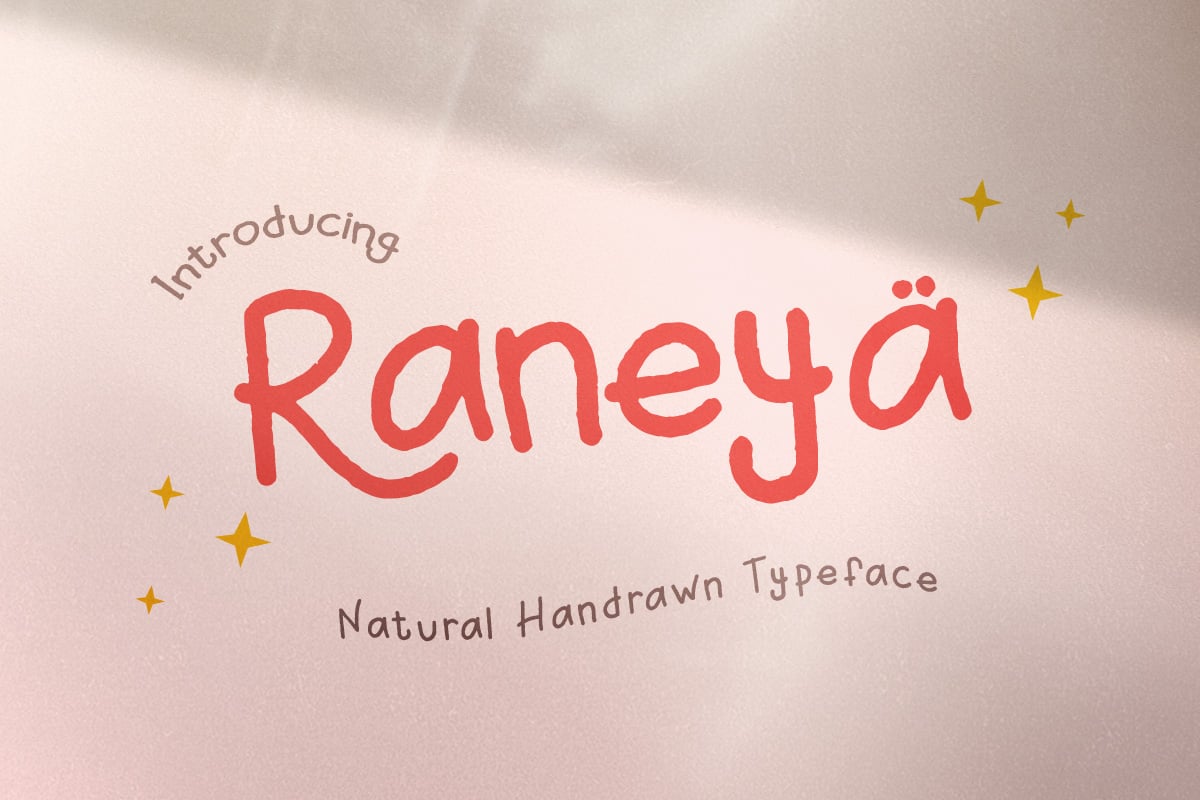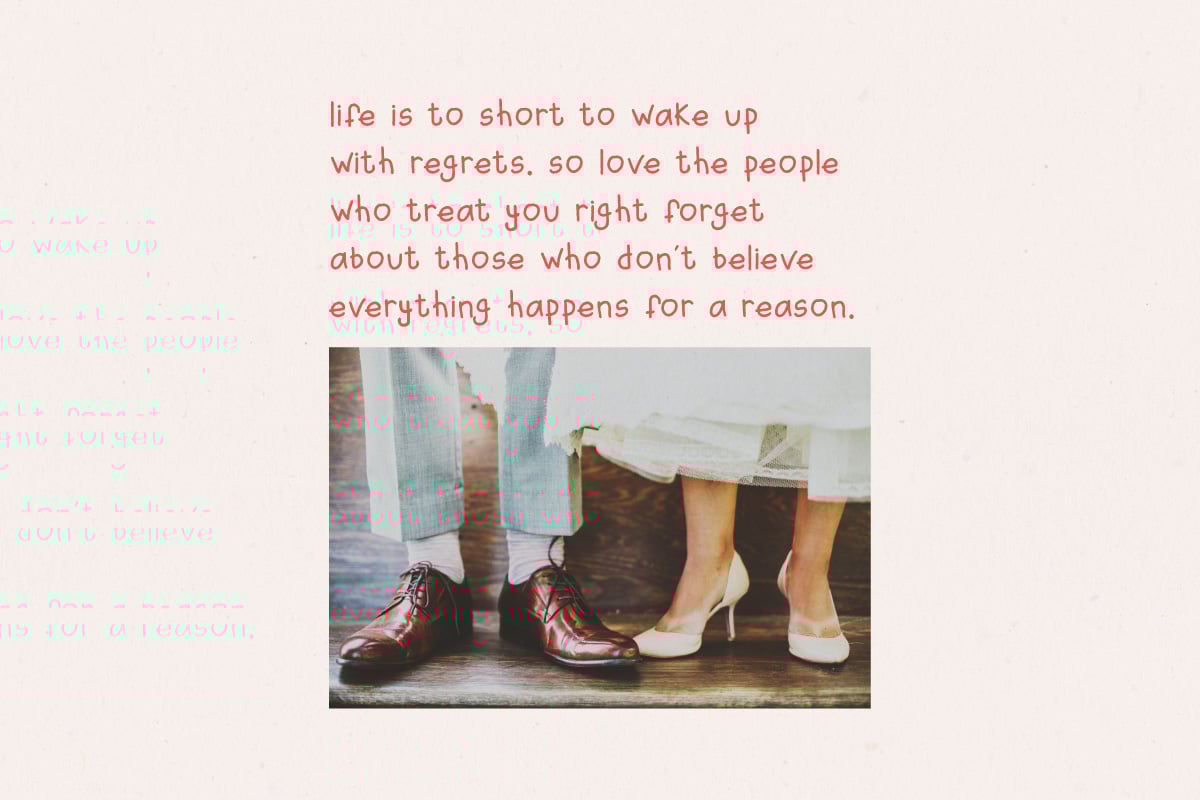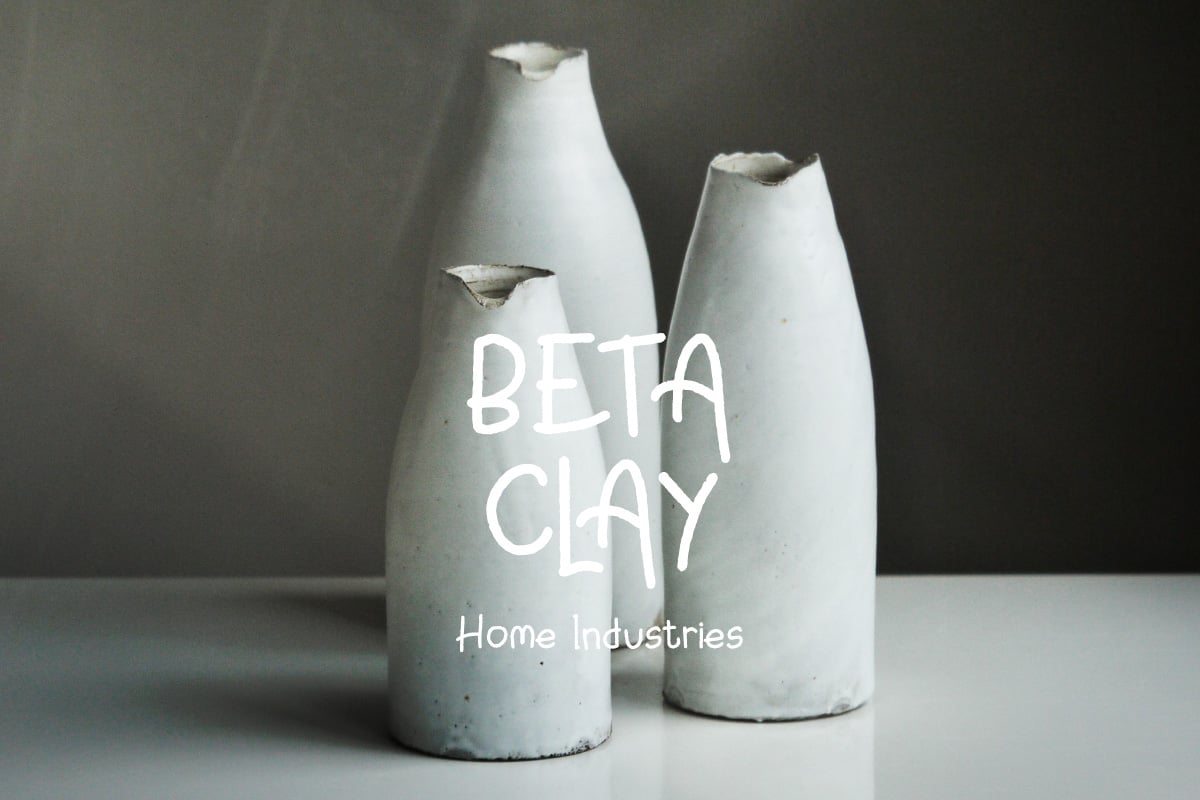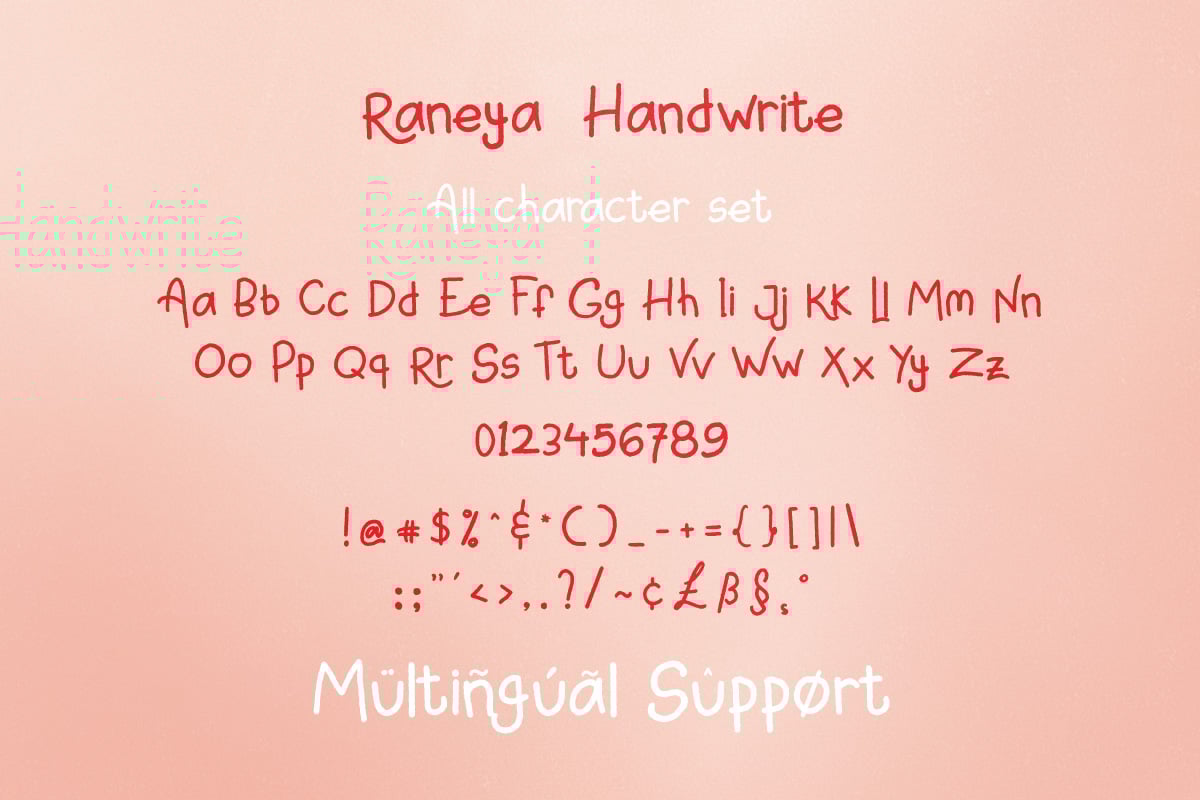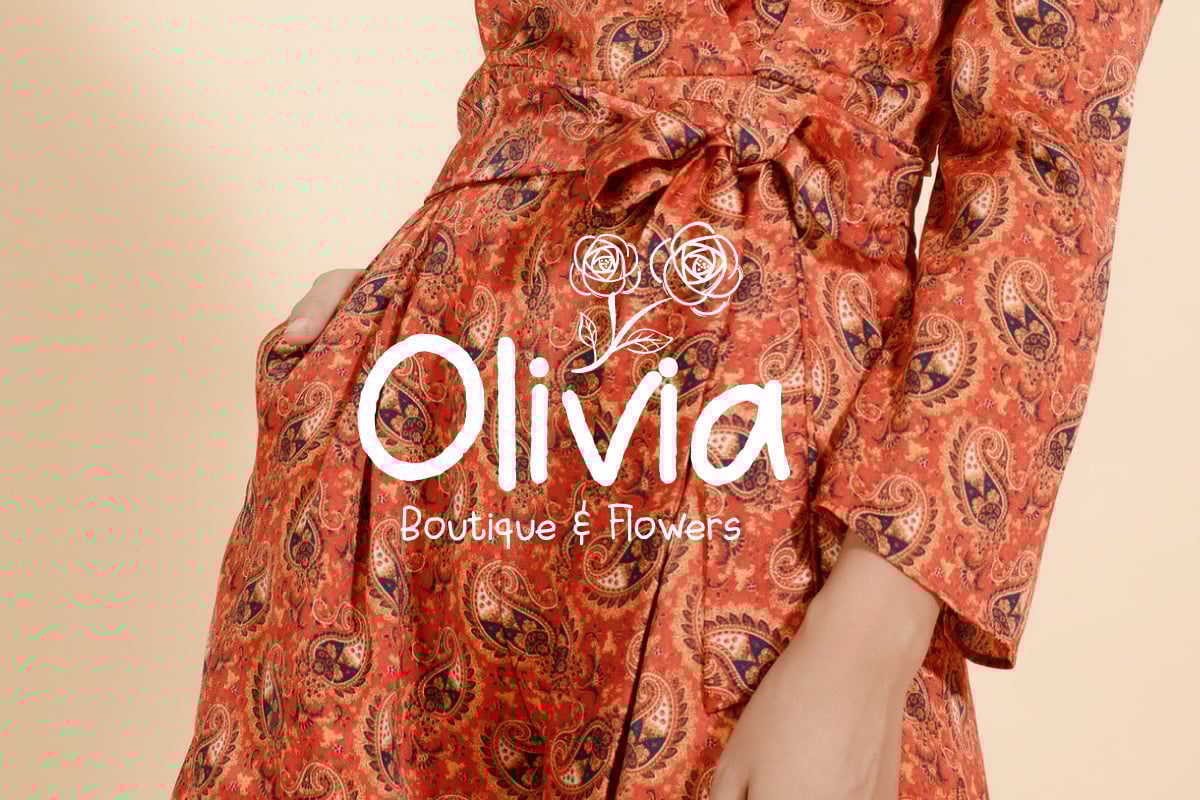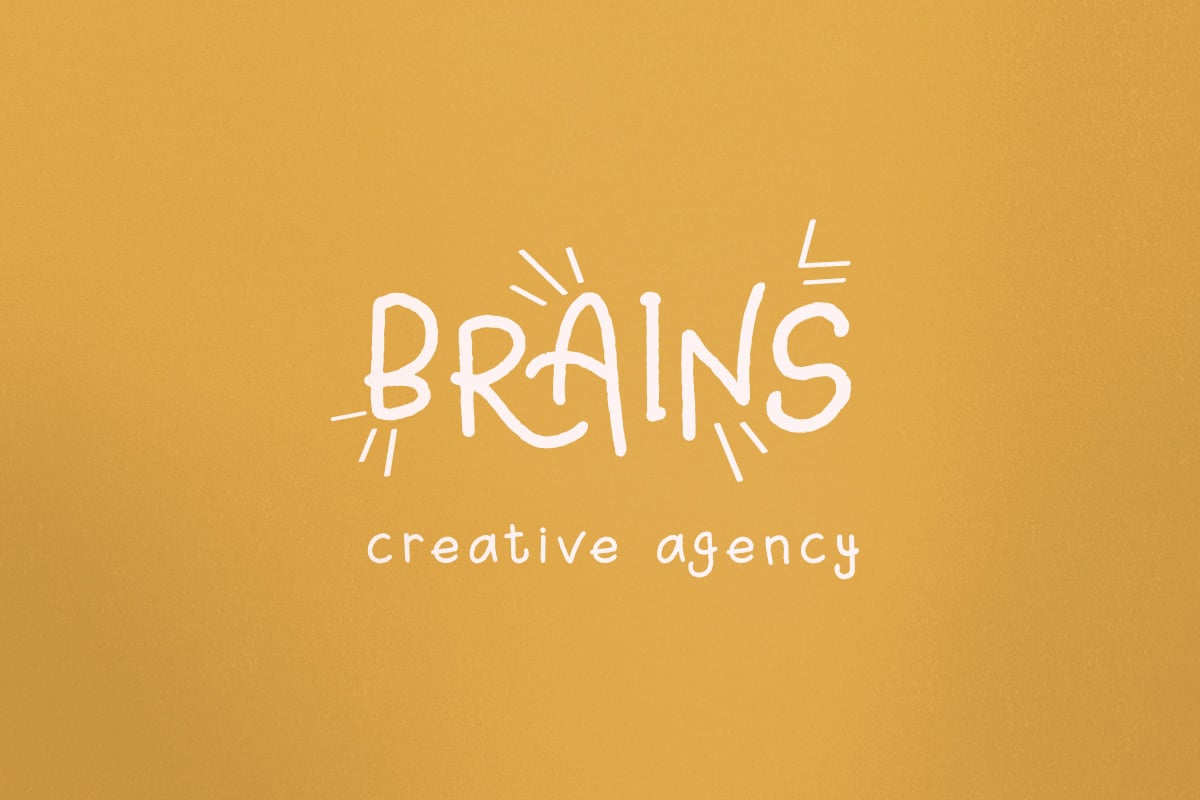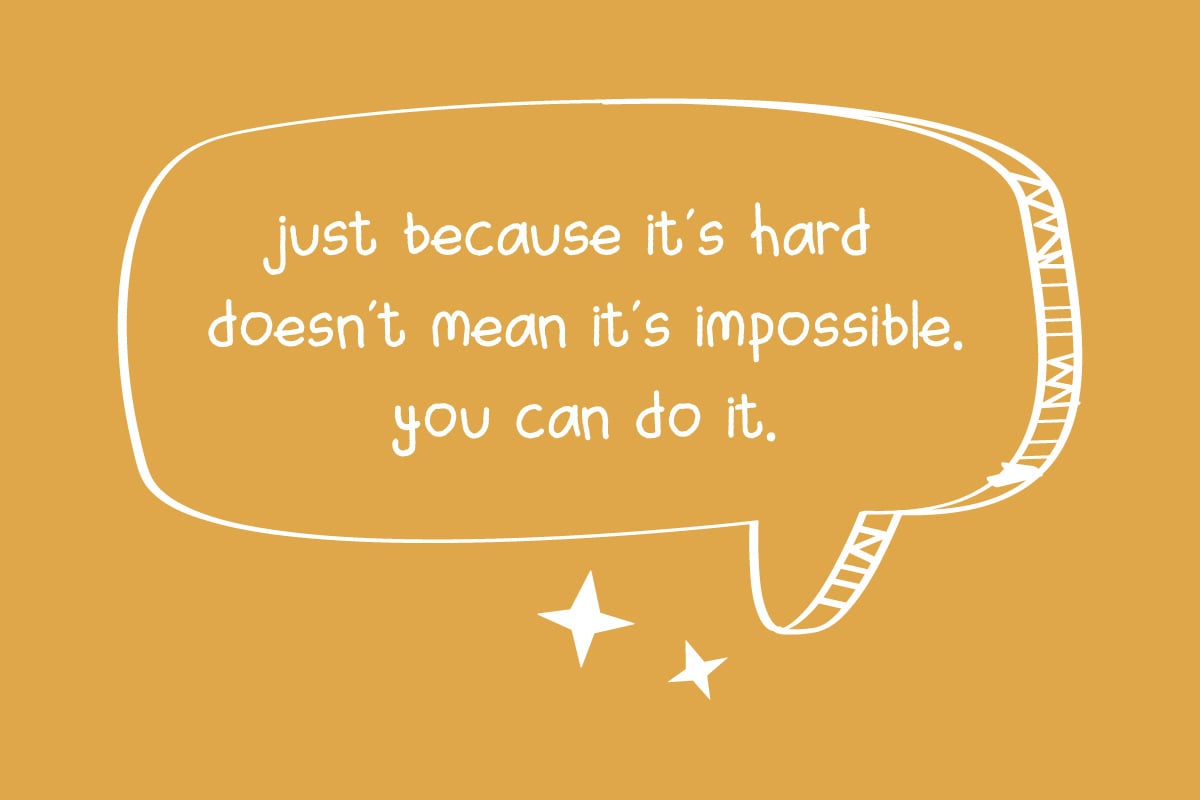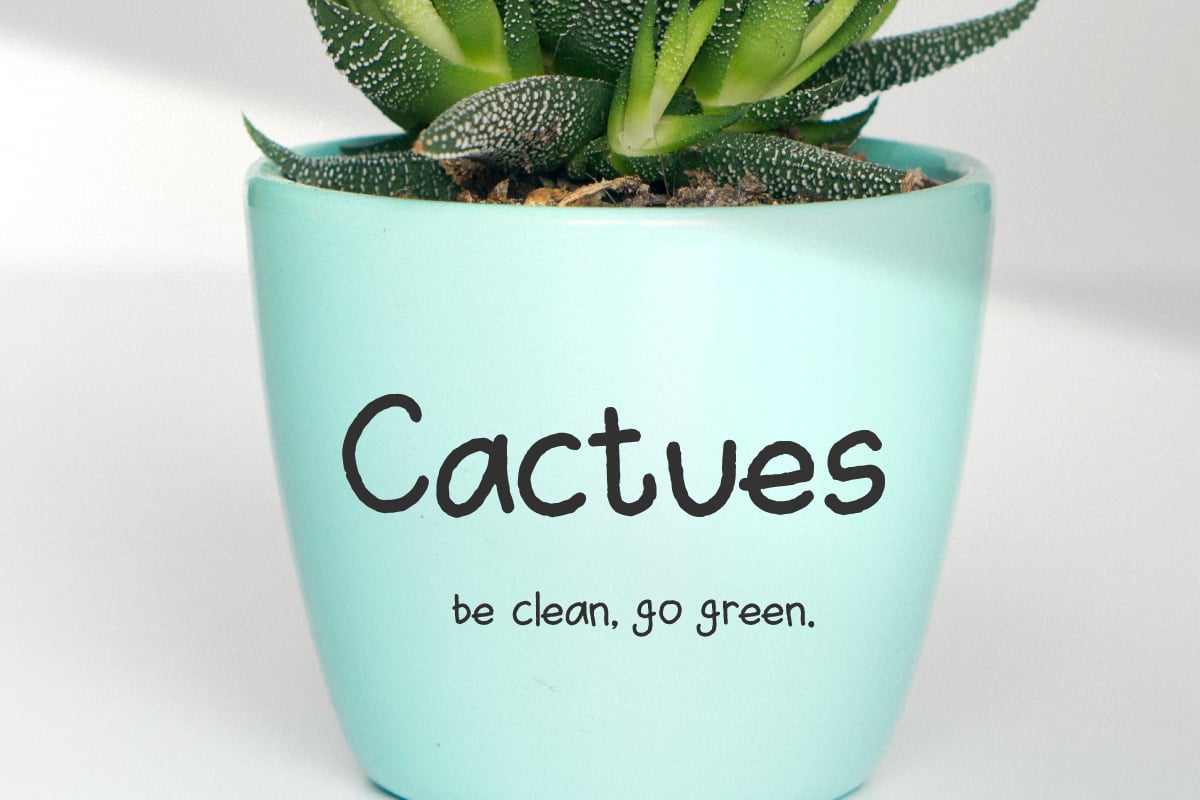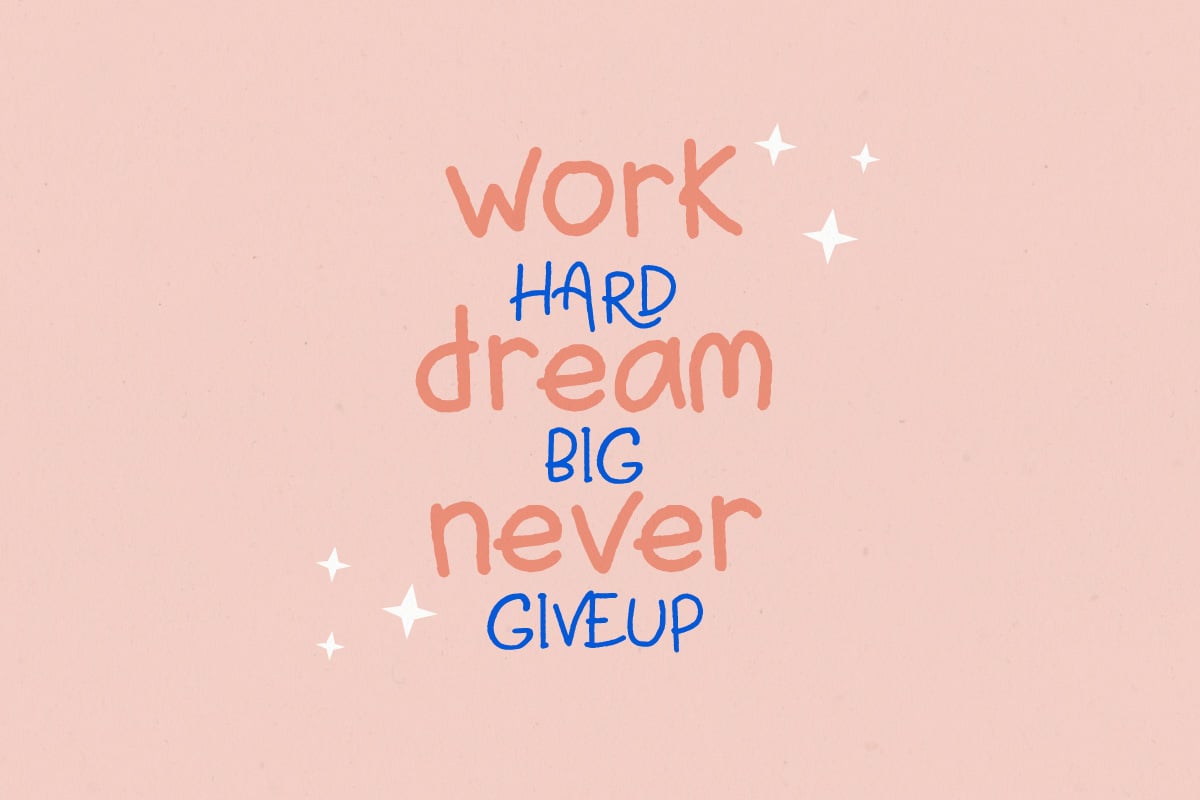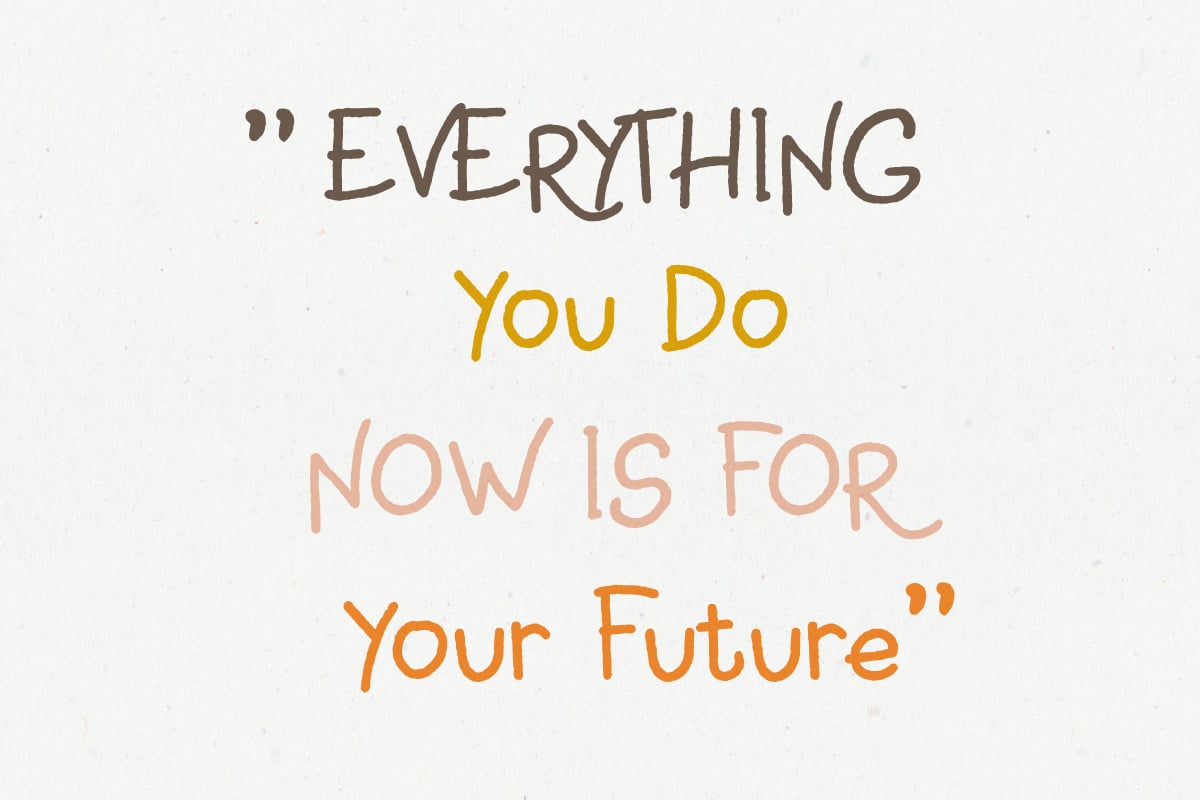
Raneya Girl – Cute Font
Raneya Girl – Cute Font with a Handwritten style, So beautiful on invitation like greeting cards, branding materials, business cards, quotes, posters, and more!
- Hundred of glyphs